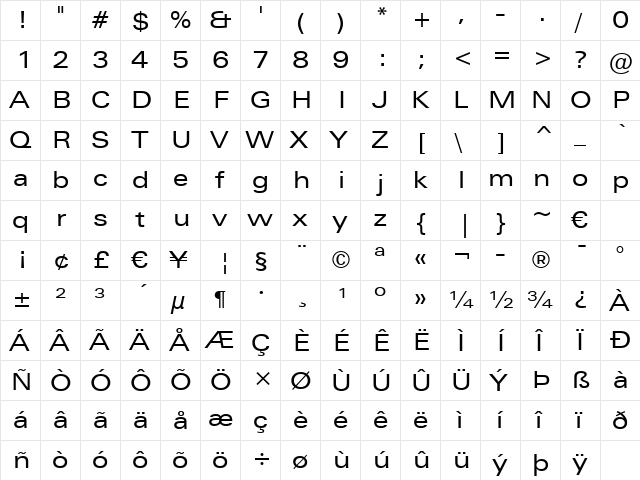
Zurich Ex BT Regular Font Preview
Zurich Ex BT Regular
Zurich Ex BT Regular Font Details
Design Context for Zurich Ex BT Typeface
Zurich Ex BT offers clean, dependable letterforms without strong stylistic allegiance, making it a practical choice for designers who need flexibility.
Pro Tip: Pair Zurich Ex BT with a font of contrasting weight or personality to build a more expressive typographic hierarchy.